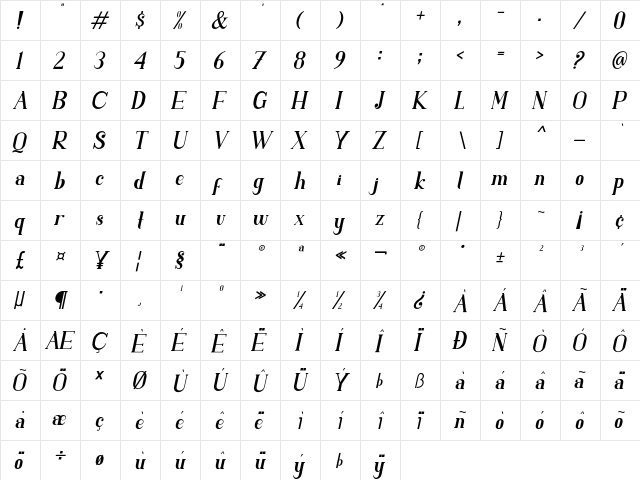
SINGGEL PARENT TYPE FACE Regular
Design Context for SINGGEL PARENT TYPE FACE Typeface
SINGGEL PARENT TYPE FACE offers clean, dependable letterforms without strong stylistic allegiance, making it a practical choice for designers who need flexibility.
Pro Tip: Pair SINGGEL PARENT TYPE FACE with a font of contrasting weight or personality to build a more expressive typographic hierarchy.